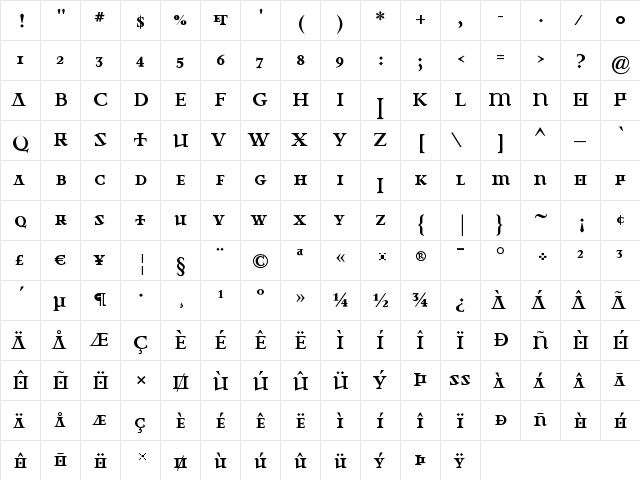
PrioriSerBoldSCAlt Regular
| Designer | Jonathan Barnbrook |
Design Context for PrioriSerBoldSCAlt Typeface
PrioriSerBoldSCAlt offers clean, dependable letterforms without strong stylistic allegiance, making it a practical choice for designers who need flexibility. The heavy weight commands attention and anchors typographic hierarchies.